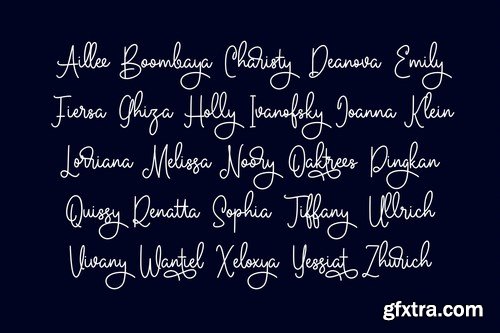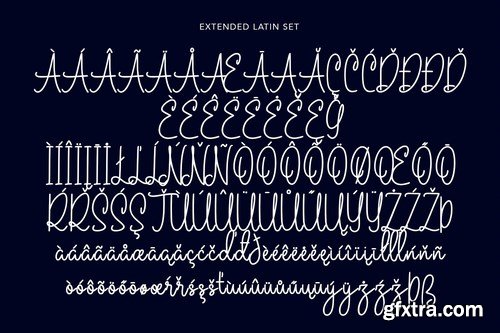
Emitensy script is a handwritten script font With some flourist, clean and fun character. It has Opentype features of ligatures character, To give you an extra creative work. Emitensy script font support multilingual more than 100+ language. This font is good for logo design, Social media, Movie Titles, Books Titles, a short text even a long text letter and good for your secondary text font with sans or serif. Make a stunning work with Emitensy script font.